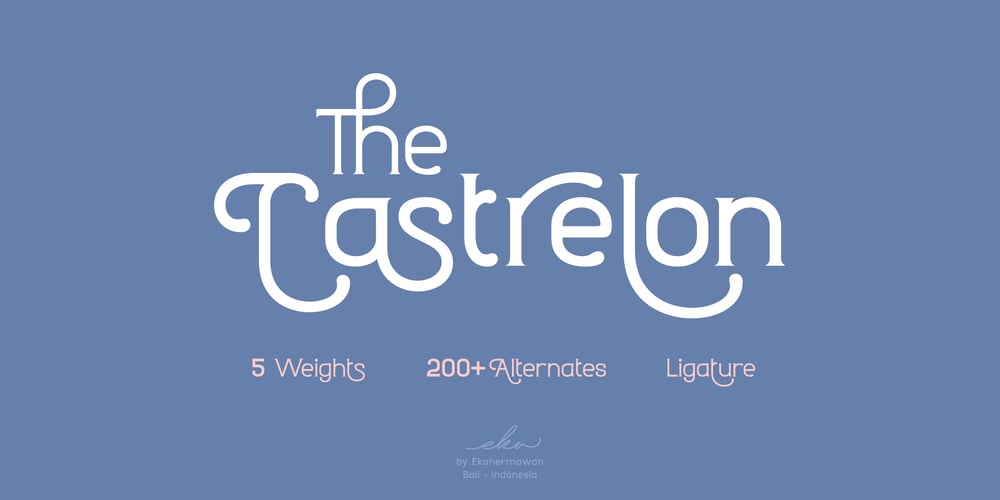
Castrelon Font Family was designed by Putu Eka Hermawan and published by Ekahermawan. Castrelon contains 5 styles and family package options. Castrelon is a elegant serif family with a bunch of alternates and ligatures.Castrelon including with more than 200+ alternative characters (PUA Encoded) that give you a wide range of typographic design results. Castrelon is a versatile font for many different projects such as logo, branding, posters, magazines, label, merchandise, presentation, advertising, cards, quotes and so much more!FEATURES:OpenType supportPlayful to use (with ligatures options and alternates options)Multilingual supportPUA EncodedIf you need support or more information about this item please kindly contact me :ekahermawanputu@gmail.comThank you so muchI really hope you enjoy using it!